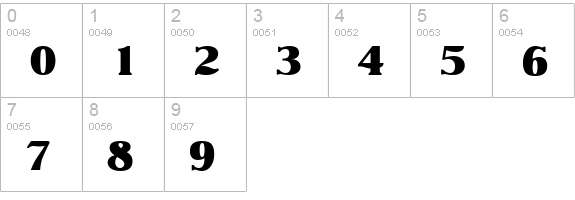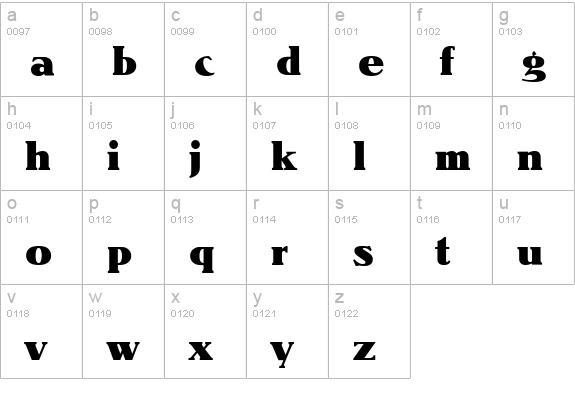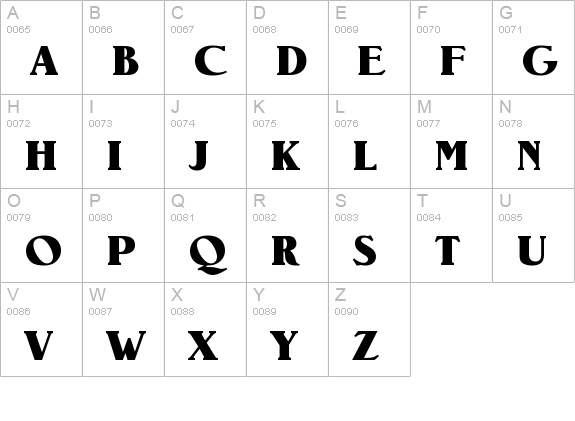
NevadaSerial-Heavy-Regular is a heavy, high-impact variant in the NevadaSerial typeface family \xE2\x80\x94 well suited to high-impact headlines, posters, and display advertising.
NevadaSerial-Heavy-Regular font is a bold and commanding typeface that exudes strength and power. Its heavy weight and distinctive serifs make it perfect for creating impactful headlines and attention-grabbing designs. The font's clean lines and modern aesthetic give it a timeless appeal that is sure to make your projects stand out. Best of all, NevadaSerial-Heavy-Regular font is available for free download at FontsMarket.com. Whether you're working on a poster, logo, or branding project, this versatile font can add a touch of sophistication and professionalism to your work. Download NevadaSerial-Heavy-Regular font today and take your designs to the next level.